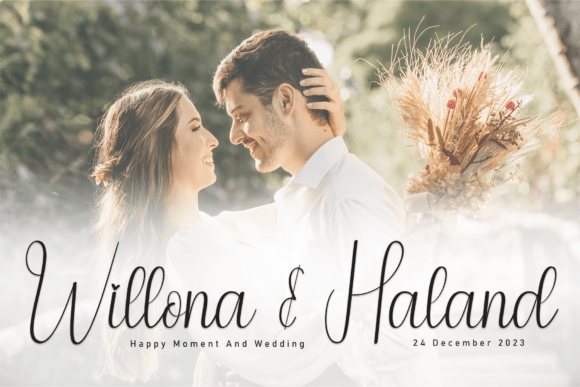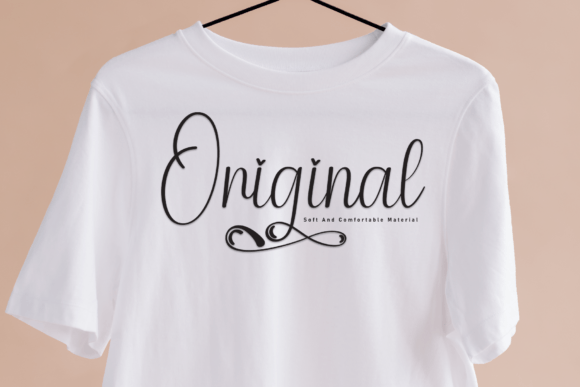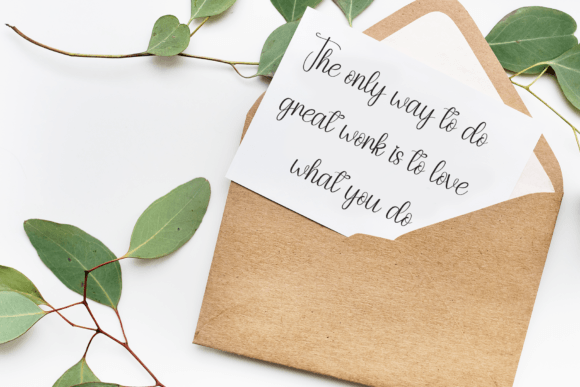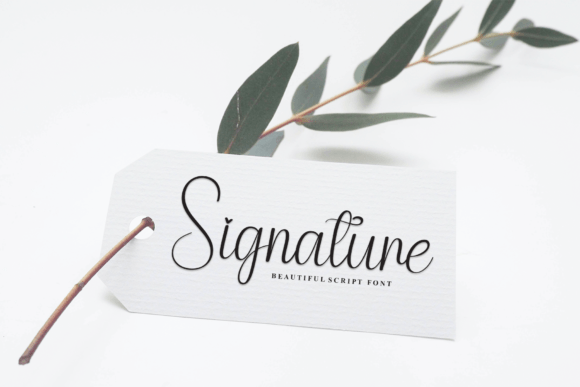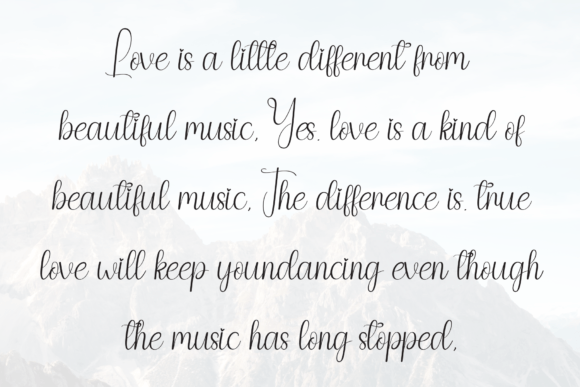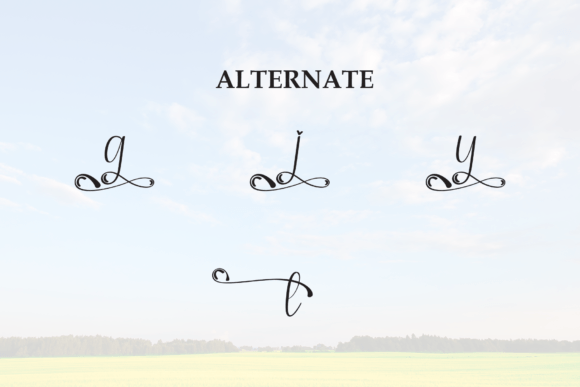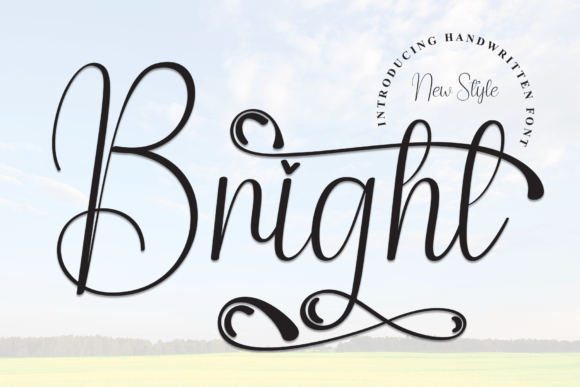
The Perfect Font for a Personal Touch: A Deep Dive into Bright Font
I’ll never forget the time I was working on a wedding invitation project, and my client asked me to add a “sweet and friendly” touch to the design. I scoured the internet for the perfect font, but nothing seemed quite right. That was until I stumbled upon Bright Font, a beautiful handwritten display font that instantly captured the warmth and playfulness I was looking for. In this article, I’ll share my experience with Bright Font, its features, and how to make the most of it in your designs.
An Honest Review of Bright Font
What I Love About Bright Font ✨
- ✅ Sweet and friendly vibe that’s perfect for wedding invitations, cards, and other personal designs
- ✅ Handwritten feel that’s both playful and elegant
- ✅ Easy to read, even in larger or smaller sizes
- ✅ Versatile and works well with a variety of design styles
- ⚠️ Limited use of uppercase letters, which might not be ideal for certain designs
- ⚠️ Some users might find the font a bit too “cute” or playful for their taste
A Practical Guide to Using Bright Font
- Experiment with OpenType features, such as glyphs and stylistic alternates, to add more personality to your design
The Story Behind Bright Font
Bright Font was designed with the intention of creating a sweet and friendly font that’s perfect for personal designs. The designer aimed to create a font that’s both playful and elegant, making it ideal for wedding invitations, cards, and other special occasions.
Q: What type of designs is Bright Font best suited for?
A: Bright Font is perfect for wedding invitations, cards, and other personal designs that require a sweet and friendly touch.